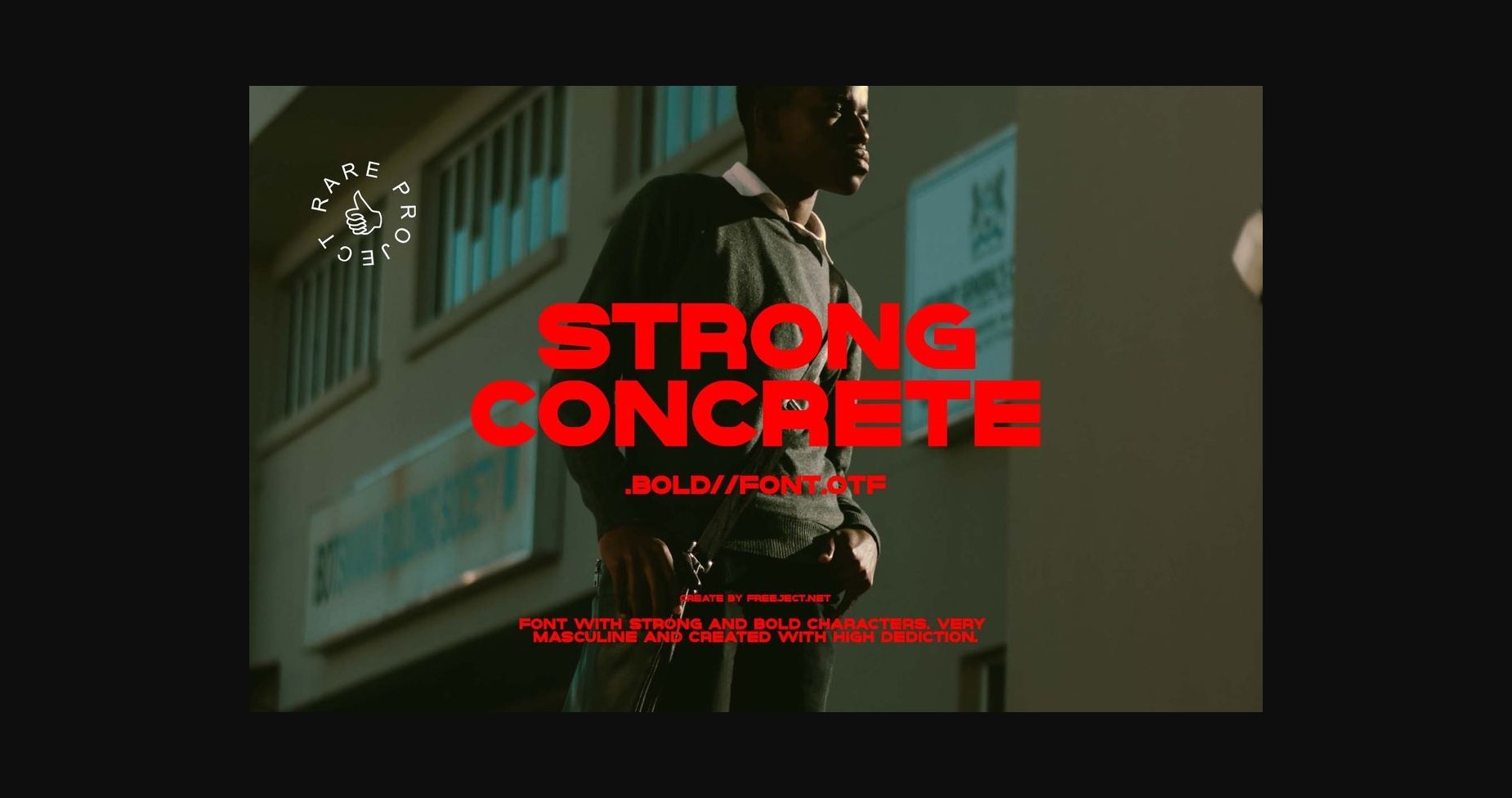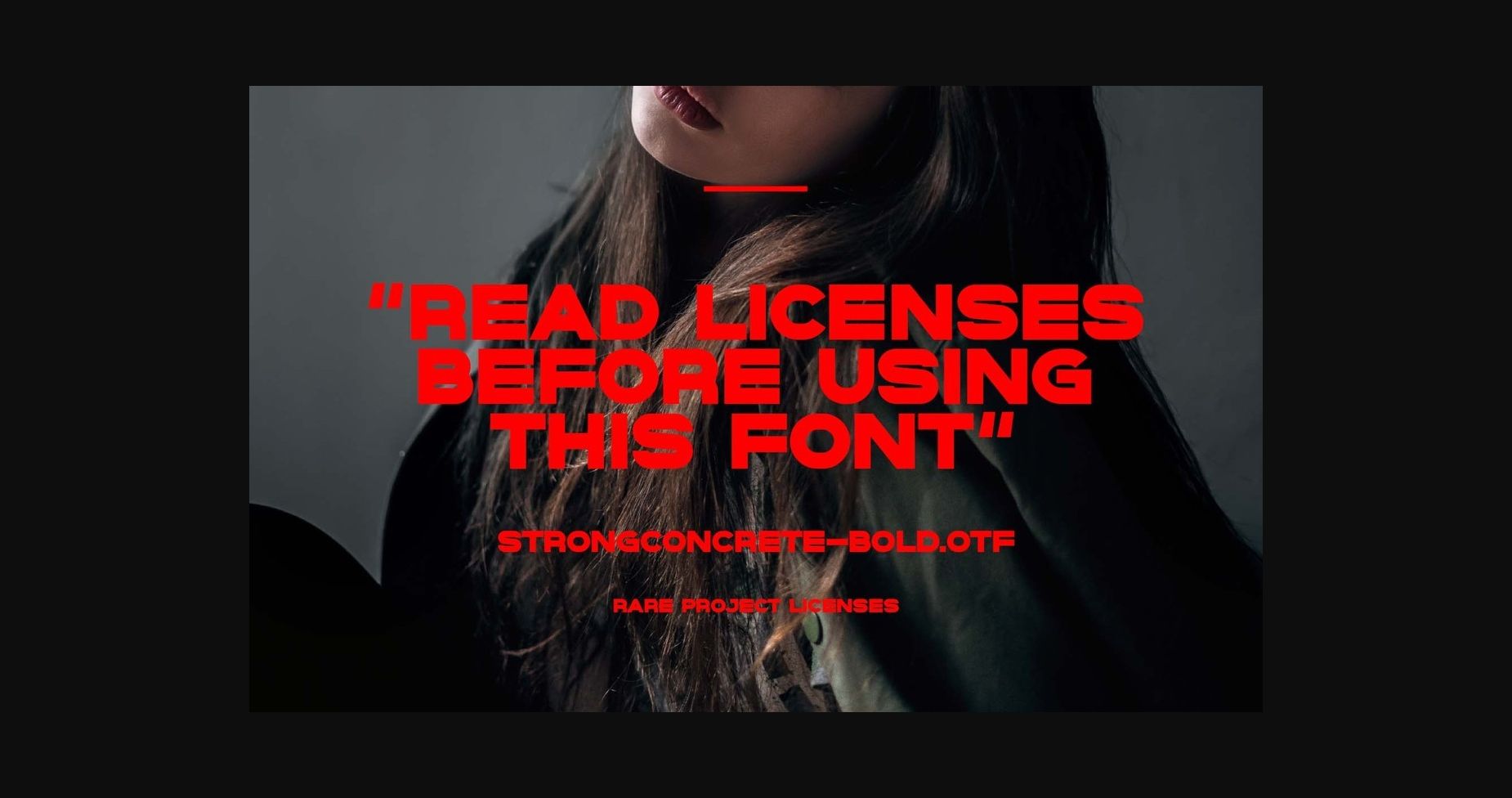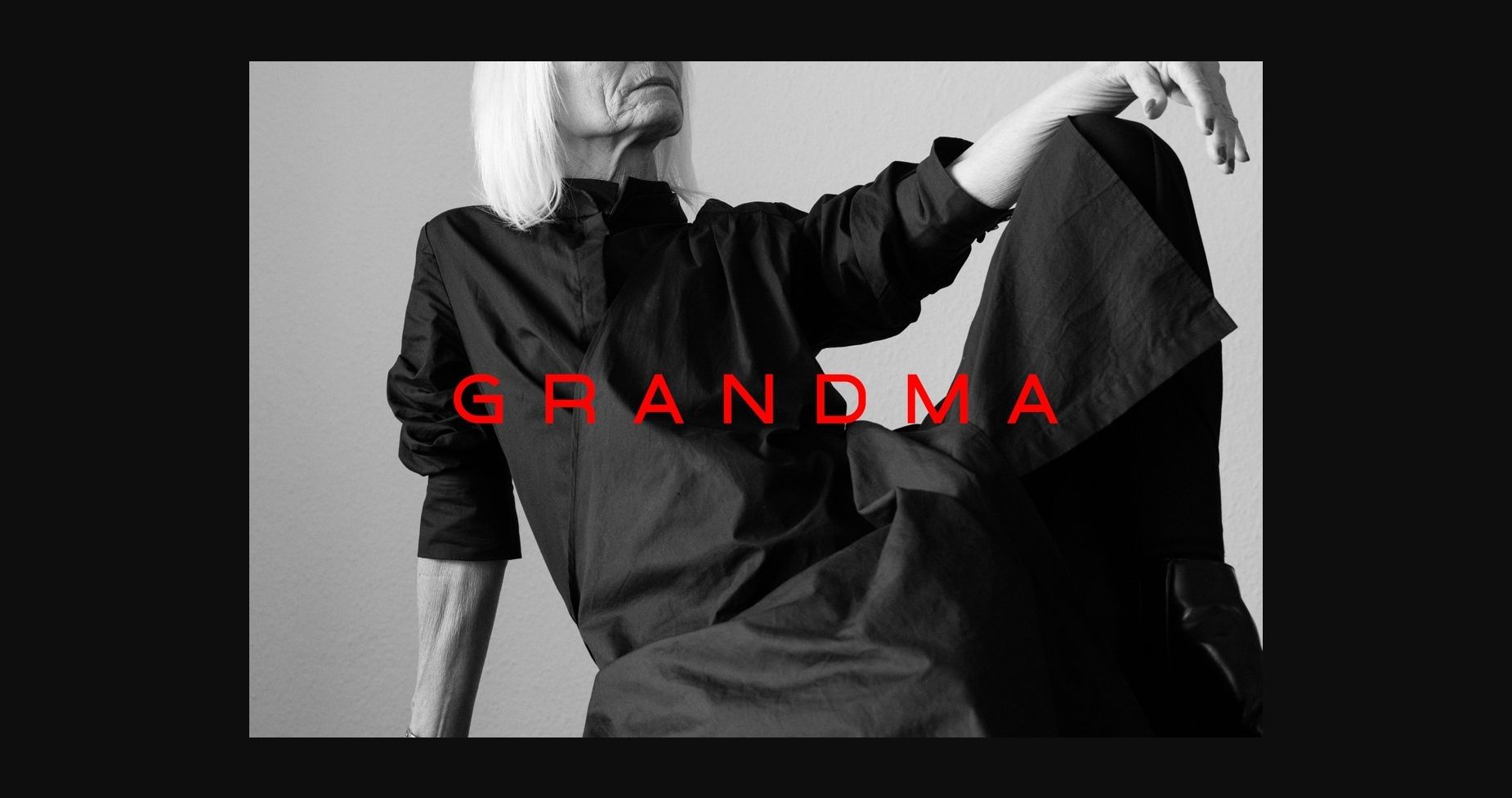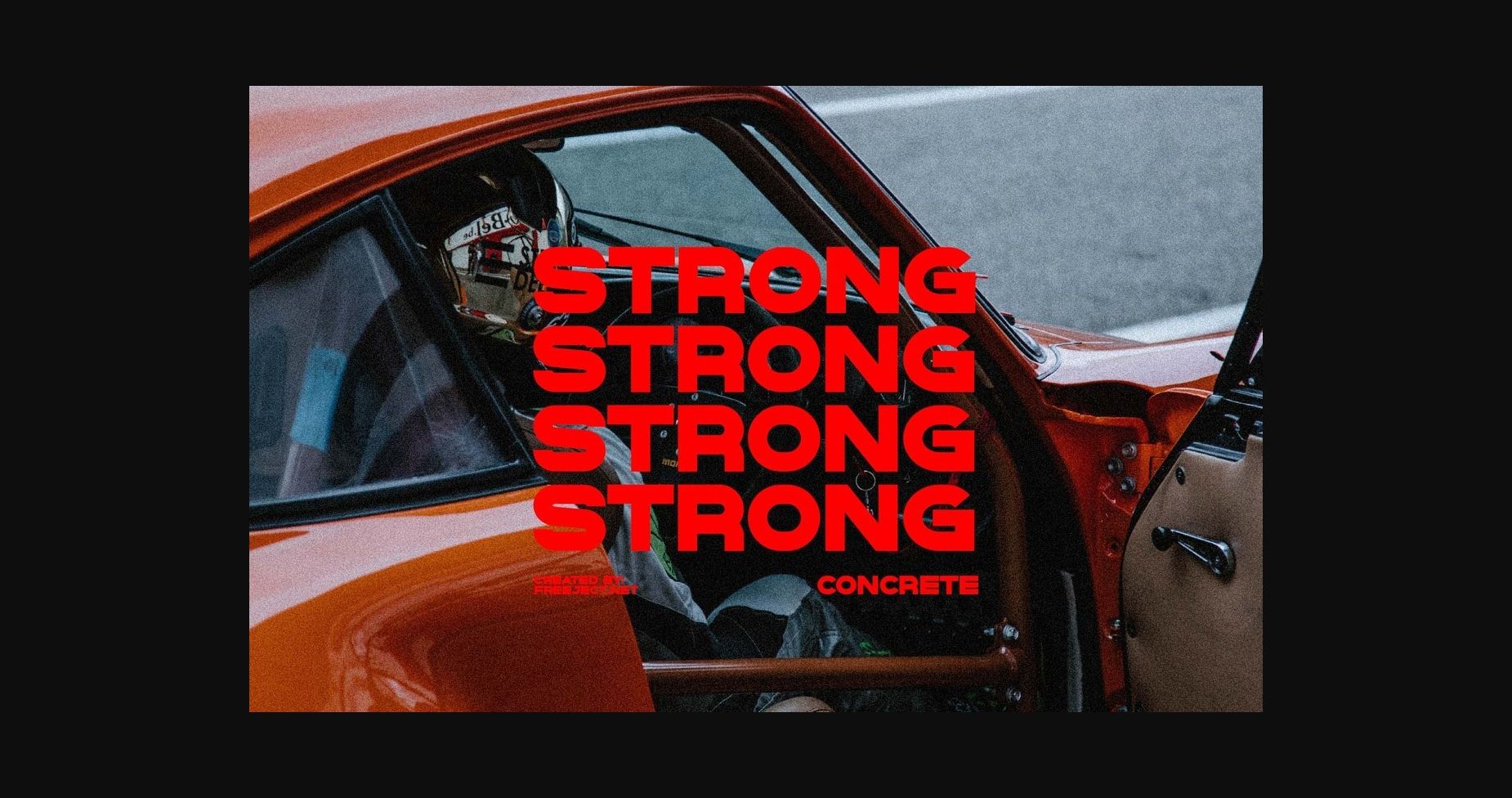
About Strong Concrete Font
Strong Concrete is a powerful and futuristic sans serif font. With its neat and charismatic characters, this typeface will add value and style to all your crafty designs! Use it for your next creative project, and you will love the results!